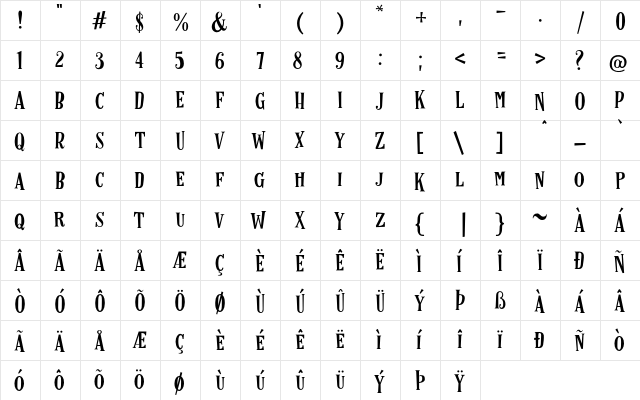
Les Paul Normal
| Foundry | Pavel Korzhenko |
| Designer | Pavel Korzhenko |
Design Context for Les Paul Typeface
Les Paul is a composed and adaptable typeface that performs quietly and consistently across a wide range of design contexts.